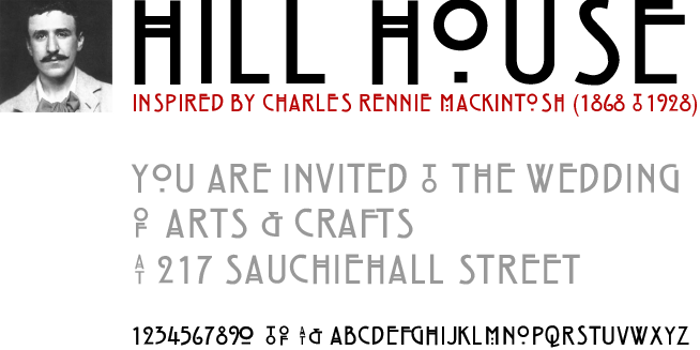
Hill House Font
Hill House is a typeface based on the distinctive handwriting of Glasgow architect Charles Rennie Mackintosh (1868-1928). The Hill House is a building originally designed for the publisher Walter Blackie, and is now in the care of The National Trust for Scotland. Now that the copyright on his handwriting style is in the public domain, this typeface is seen everywhere in Glasgow, from jewellers to chip shops! For more information on Mackintosh visit the CRM Society.
I made this font almost twenty years ago, but it's still popular due to it's suitability for wedding invitations! The font features special glyphs for the words ‘to’, ‘at’ and ‘of’, and contains Mac, PC and Opentype formats.